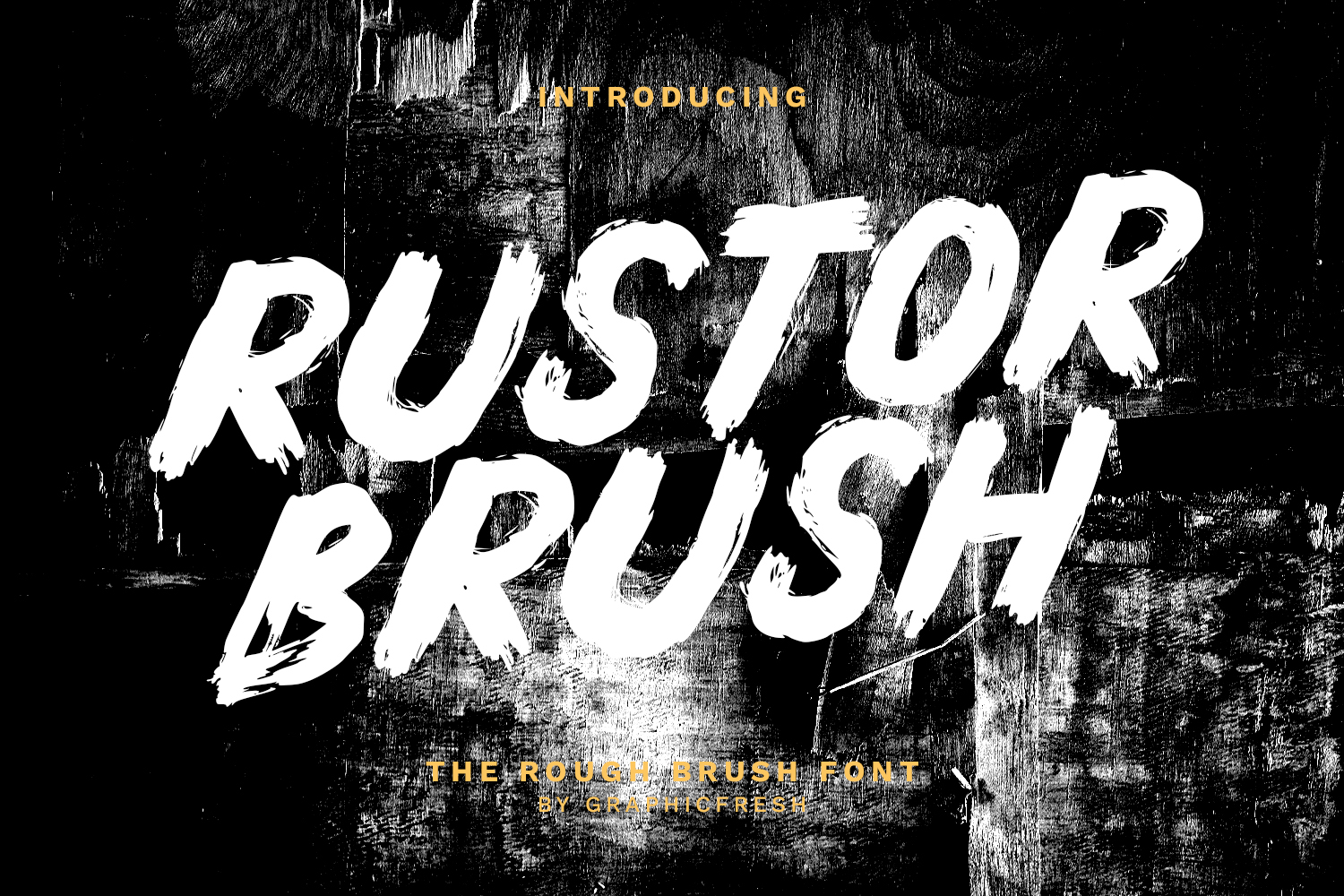
Rustor - The Rough Brush Font
Rustor is a rough brush font built with raw strokes and textured character. Designed to capture the imperfect beauty of hand-painted lettering, this font delivers bold impact with a rugged, organic feel. Its uneven edges and expressive movement create a strong visual attitude while maintaining solid readability. Rustor is perfect for branding, headlines, posters, logos, social media graphics, and creative projects that demand an authentic rough brush style.